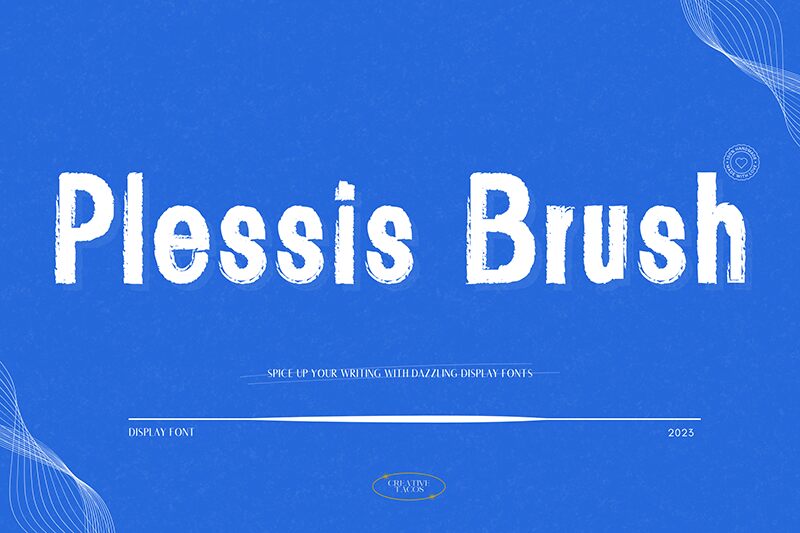
Plessis font, designed by creativetacos, is a free distorted typeface with a rugged texture and hand-crafted appearance. Its dynamic and energetic style comes across as informal and expressive for ideal artistic and casual use. Add it to your collection if you wish to experiment with modern aesthetics where characters look irregular and with eroded edges. Combining this font with imagery that conveys visual distortion guarantees people’s attention.
Use this free font for your creative projects, be it branding, packaging, business cards, flyers, brochures, or even items of stationery. Let it highlight your everyday quotes and motivational messages, as well as create asymmetrical letterings that break the monotony of your visual communications.